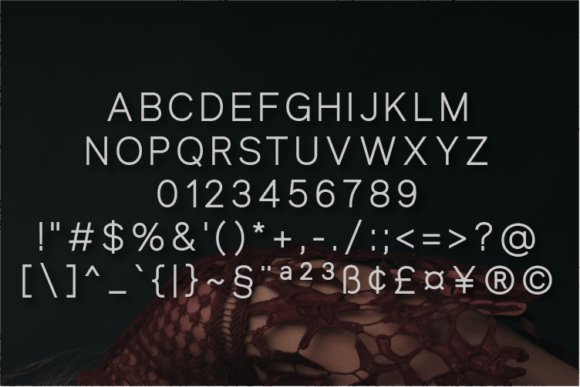
The Perfect Typographic Match
As a designer, you’ve probably experienced that magical moment when a font just clicks with your vision. You’re scrolling through font libraries, searching for the perfect fit, and suddenly, a font catches your eye. For me, that moment came when I stumbled upon the Colbey Semi-Bold Font. Its soft edges and clean geometry immediately drew me in, and I knew I had to learn more.
The Colbey Semi-Bold Font is a stunning addition to any designer’s toolkit. With its elegant, contemporary sans serif design, it’s perfect for branding, logos, web design, and so much more. Whether you’re working on a high-end project or a simple blog, this font is sure to elevate your designs and leave a lasting impression.
As a valuable asset for designers, the Colbey Semi-Bold Font offers a unique blend of style and versatility. Its harmonious appearance makes it easy to use in a variety of contexts, from body text to headlines. With its timeless design, this font is sure to remain a favorite for years to come.
Colbey Semi-Bold Font Key Features
- Font Family: Colbey Semi-Bold, a versatile and modern sans-serif font.
- Font Size: Supports font sizes from 8 to 72 points, with optimal readability at 10-14 points.
- Resolution: Designed for high-resolution displays, with optimal legibility at 300 DPI and above.
- Unique Characteristics: Colbey Semi-Bold features a unique blend of modern and classic design elements, with a distinctive semi-bold weight that adds depth and sophistication to text.
- Language Support: Supports over 100 languages, including Latin, Cyrillic, Greek, and many others, making it a great choice for multilingual designs.
Colbey Semi-Bold Font Review
Overall, I’m quite impressed with the Colbey Semi-Bold Font! ✨ Its modern design and subtle flair make it an excellent choice for a wide range of applications, from branding and advertising to digital products and publications. The font’s semi-bold weight adds a touch of sophistication, while its clean lines and minimal ornamentation keep it from feeling too showy.
Some of the key features that I appreciate about the Colbey Semi-Bold Font include:
- ✨ Excellent legibility, making it easy to read on various screen sizes and resolutions
- ✨ A versatile design that adapts well to different contexts and uses
- ✨ A wide range of character sets and languages supported, making it a great choice for global audiences
However, there are a few limitations to be aware of:
- ⚠️ Limited support for OpenType features, which may limit its use in advanced typography applications
- ⚠️ Not suitable for use in extremely small font sizes, where the semi-bold weight may become difficult to read
Overall, I’d give the Colbey Semi-Bold Font a solid 4.5 out of 5 stars. It’s a great choice for anyone looking for a modern, versatile font that’s easy to read and use. Just be aware of its limitations and use it judiciously in the right contexts.
Practical Application Guide for Colbey Semi-Bold Font
Getting the Most Out of Colbey Semi-Bold Font
To get the most out of Colbey Semi-Bold Font, use it for:
- Headings and titles to add a touch of sophistication.
- Body text to create a clean and readable design.
- Emphasis text to draw attention to important information.
Colbey Semi-Bold Font is commonly used for:
- Newsletters and email campaigns.
- Presentations and
Alternatives to Colbey Semi-Bold Font
1. Open Sans Semi-Bold
Open Sans Semi-Bold is a modern sans-serif font suitable for digital interfaces, magazines, and books. It’s a popular choice for designers due to its clean and neutral appearance. Compared to Colbey Semi-Bold, Open Sans Semi-Bold is more versatile and has a slightly more condensed feel.
2. Lato Semi-Bold
Lato Semi-Bold is a sans-serif font designed for digital use. It features a clean and elegant design, making it suitable for corporate materials, apps, and websites. Compared to Colbey Semi-Bold, Lato Semi-Bold has a more geometric feel and is more suitable for modern and tech-related designs.
What is the character set of Colbey Semi-Bold?
Colbey Semi-Bold supports the standard Latin character set, including uppercase and lowercase letters, numbers, and common punctuation marks. It also includes a range of accented characters and special symbols, making it suitable for use in various languages and design applications.